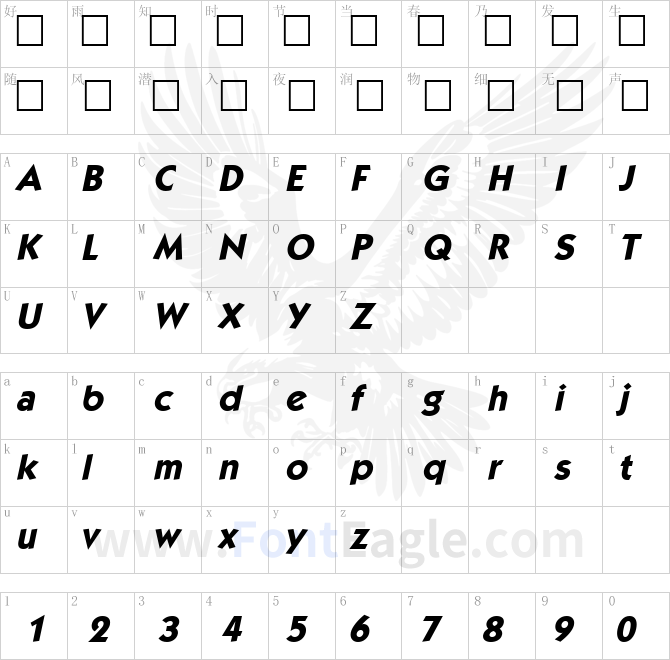
- Font name:KabobExtrabold
- Font Subfamily ID:Weatherly Systems, Inc. KabobExtrabold Italic
- Font Full Name:KabobExtrabold Italic
- Postscript:KabobExtrabold-Italic